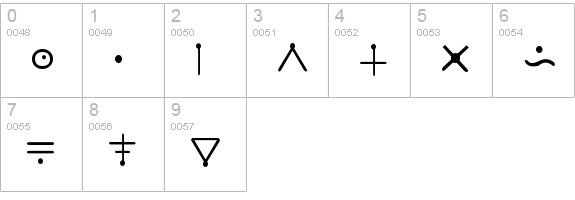
Futurama Alien Alphabet One Font Details
The Futurama Alien Alphabet One font is a unique and futuristic typeface that will transport you to a world beyond our own. This eye-catching font features intricate alien symbols that are perfect for adding a touch of otherworldly charm to your designs. Whether you're working on a science fiction project, a futuristic advertisement, or simply looking to add a bit of flair to your text, this font is sure to impress. What's even better is that this font is available for free download at FontsMarket.com. You can easily access this captivating typeface and start using it in your projects right away. Don't miss out on the opportunity to enhance your designs with the Futurama Alien Alphabet One font - download it for free today!